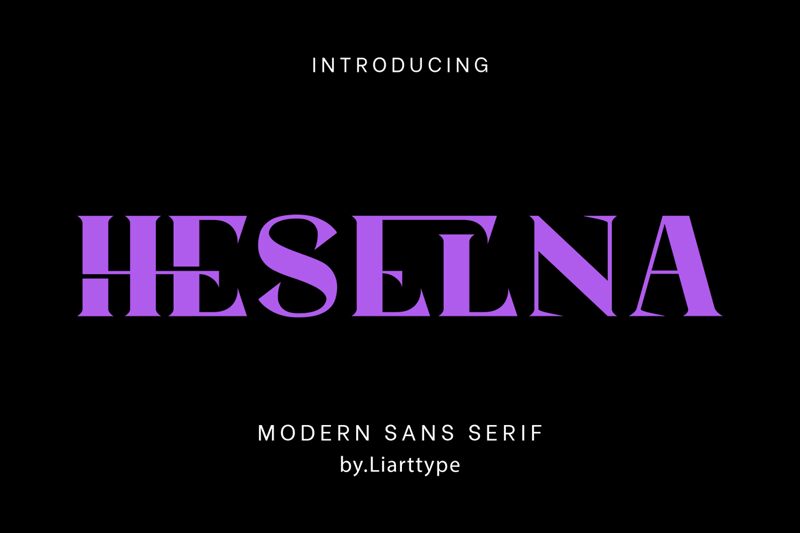
Heselna, crafted by Liart Type, captivates with its striking bold serif design, blending traditional elegance with modern flair. Its robust personality is amplified through sweeping curves and distinctive serifs that command attention while maintaining approachability. The generous spacing between letters adds a sense of openness, enhancing readability and visual appeal.
This font shines in branding projects, editorial layouts, and high-impact signage where a confident statement is essential. Whether gracing a luxury brand’s logo or enlivening an artful magazine cover, Heselna effortlessly elevates any design context with its unique character and presence. Engage your audience with this versatile typeface that harmoniously balances strength and sophistication.